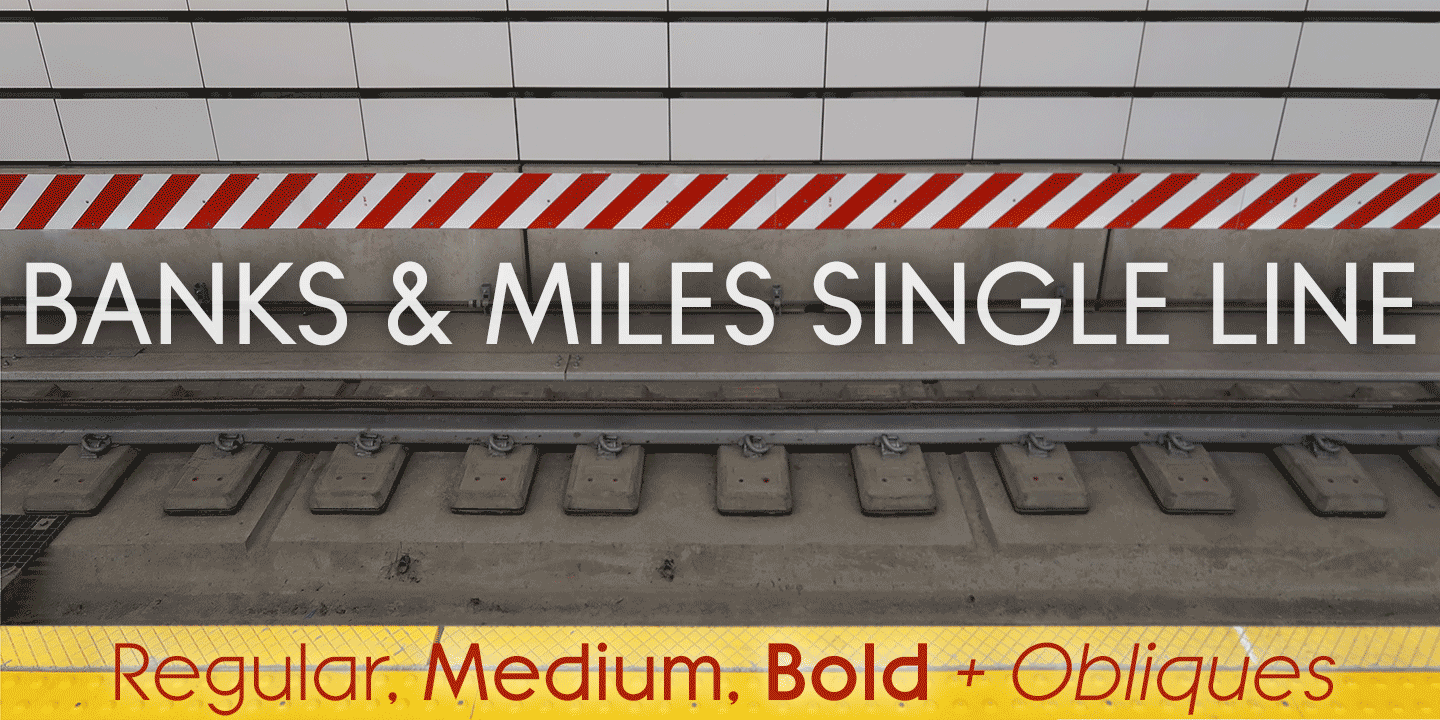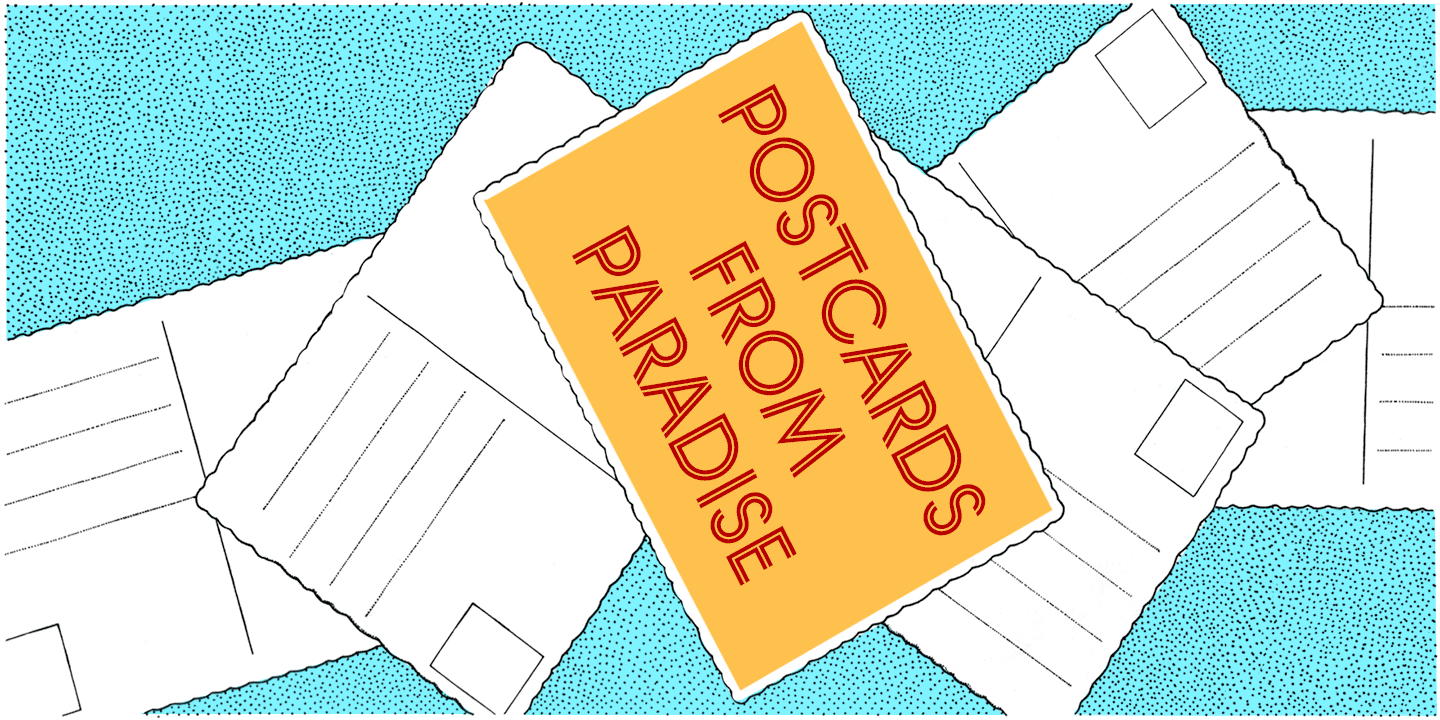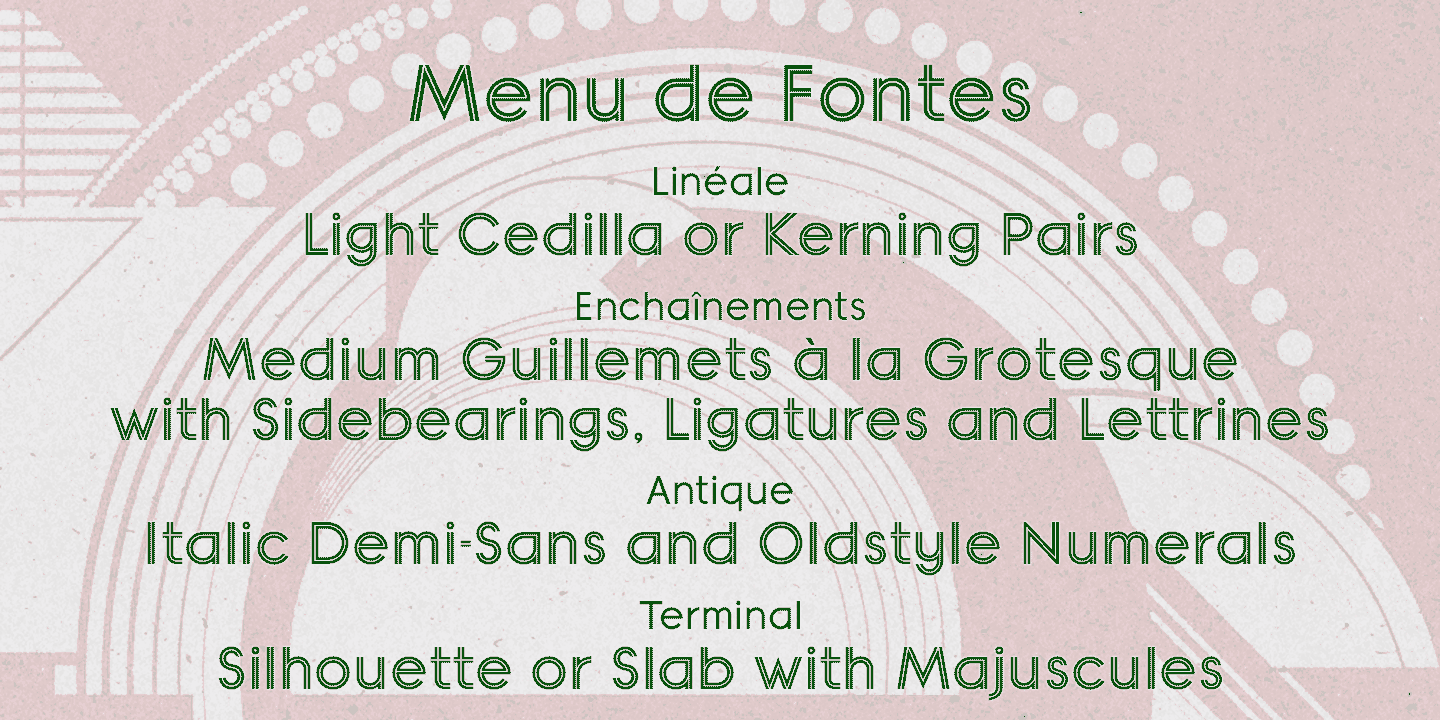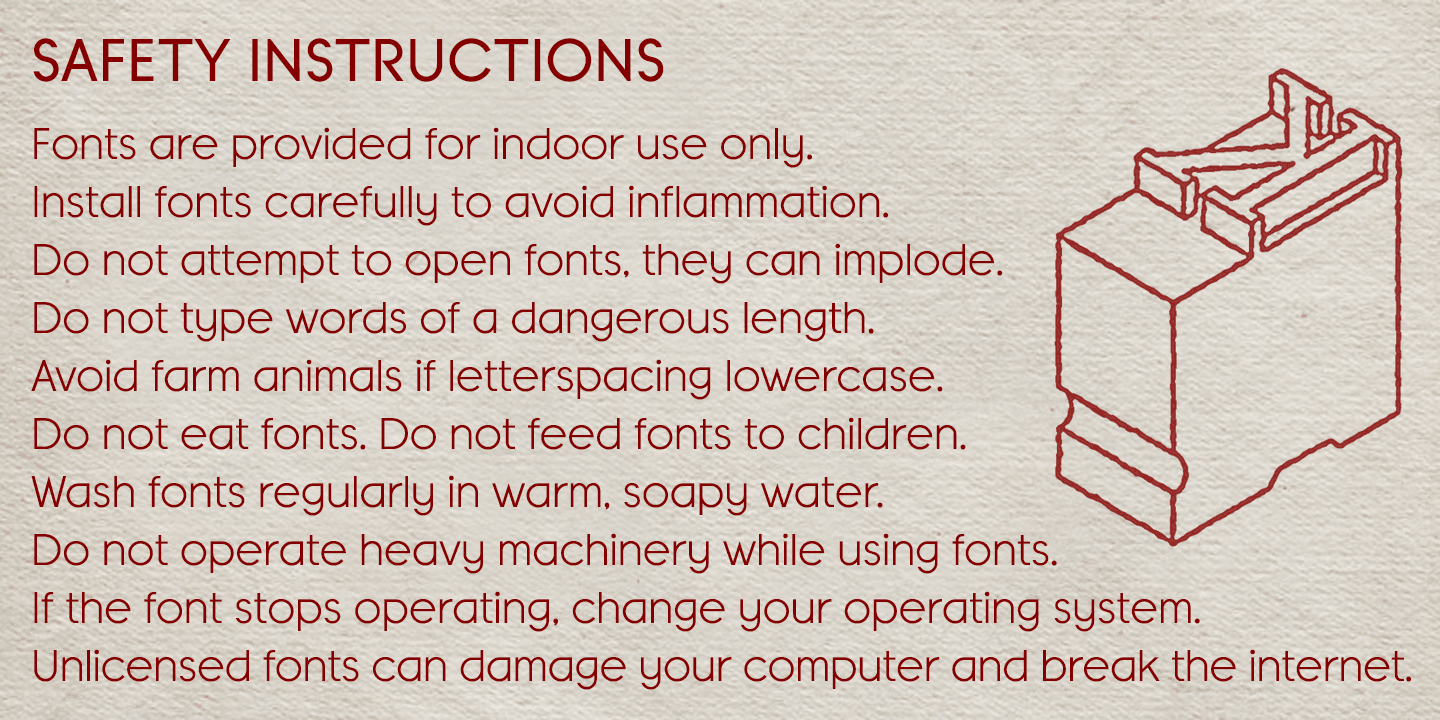
About Banks & Miles
K-Type\’s Banks & Miles fonts are inspired by the geometric monoline lettering created for the British Post Office in 1970 by London design company Banks & Miles, a project initiated and supervised by partner John Miles, and which involved creating ?Double…